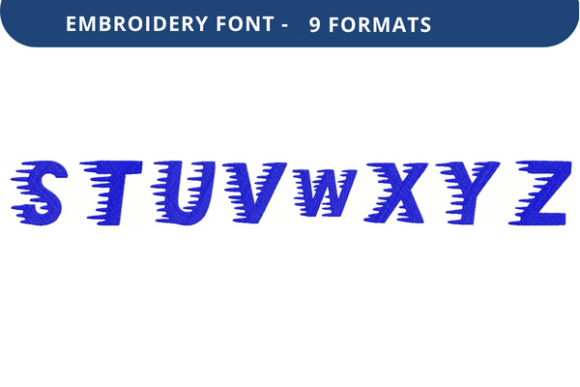
Winter Sprinter Font S to Z
The Winter Sprinter Font S to Z is a versatile embroidery font designed to elevate your creative projects with a clean, modern aesthetic. Whether you're crafting personalized gifts, branding materials, or custom apparel, this font offers a unique blend of style and functionality that stands out in any design. Its elegant yet bold character set makes it ideal for both personal and professional use.
What Makes Winter Sprinter Font S to Z Stand Out?
One of the standout features of the Winter Sprinter Font S to Z is its distinct visual appeal. The font combines a crisp, geometric structure with subtle curves that give it a contemporary feel. This balance of sharpness and softness ensures it looks great on a wide range of fabrics, from cotton to denim.
Key Characteristics and Strengths
- Clear Letterforms: Each letter is well-defined, ensuring readability even at smaller sizes.
- Consistent Styling: The font maintains a uniform look across all characters, which is essential for maintaining brand identity.
- High-Quality Stitching: The design is optimized for smooth stitching, reducing the risk of skipped stitches or uneven results.
Practical Applications Across Different Environments
The Winter Sprinter Font S to Z is not just for hobbyists—it's a valuable tool for professionals in multiple industries. Here are some real-world applications:
Personal Projects
For individuals looking to add a personal touch to their crafts, the Winter Sprinter Font S to Z is perfect. Use it to embroider names, dates, or meaningful quotes on items like tote bags, scarves, or holiday décor. Its clean lines make it especially suitable for minimalist designs.
Professional Branding
Entrepreneurs and small business owners can leverage the Winter Sprinter Font S to Z to create branded merchandise. From custom t-shirts to promotional items, this font helps reinforce brand identity through consistent typography. It’s especially useful for creating logos, tags, or labels that need to be both eye-catching and legible.
Education and Training
Teachers and educators can use the Winter Sprinter Font S to Z to create interactive learning materials. For example, students can practice writing by tracing embroidered letters, or teachers can produce visually engaging flashcards. The font’s clarity makes it an excellent choice for educational tools.
Creative and Digital Workflows
Designers and content creators will find the Winter Sprinter Font S to Z invaluable for integrating embroidery into digital projects. Whether you're designing social media graphics, packaging, or product mockups, this font adds a tactile element that enhances the overall presentation.
Why Choose Winter Sprinter Font S to Z Over Other Options?
While there are many embroidery fonts available, the Winter Sprinter Font S to Z offers several advantages that make it a top choice:
- Time-Saving: The font’s pre-designed shapes reduce the time spent on manual customization, allowing you to focus on other aspects of your project.
- Adaptable: Whether you're working on a large-scale production or a single custom piece, the font scales well and maintains quality across all sizes.
Realistic Examples and Use Cases
Imagine using the Winter Sprinter Font S to Z to create a custom wedding invitation with the couple’s names. The font’s elegance adds a touch of sophistication, while its clarity ensures the message is easy to read. Another example could be a local boutique using the font to label handmade products, enhancing the store’s visual appeal and brand recognition.
Considerations When Selecting and Using the Font
Before investing in the Winter Sprinter Font S to Z, consider the following factors:
- Design Complexity: While the font is simple and clean, it may not be suitable for intricate or highly detailed designs.
Final Thoughts
The Winter Sprinter Font S to Z is more than just an embroidery font—it’s a powerful tool that can enhance your creative output across various domains. Whether you're a hobbyist, entrepreneur, educator, or designer, this font offers a blend of style, functionality, and versatility that is hard to match. By choosing the Winter Sprinter Font S to Z, you’re investing in a resource that can help you create more engaging, professional, and memorable designs.